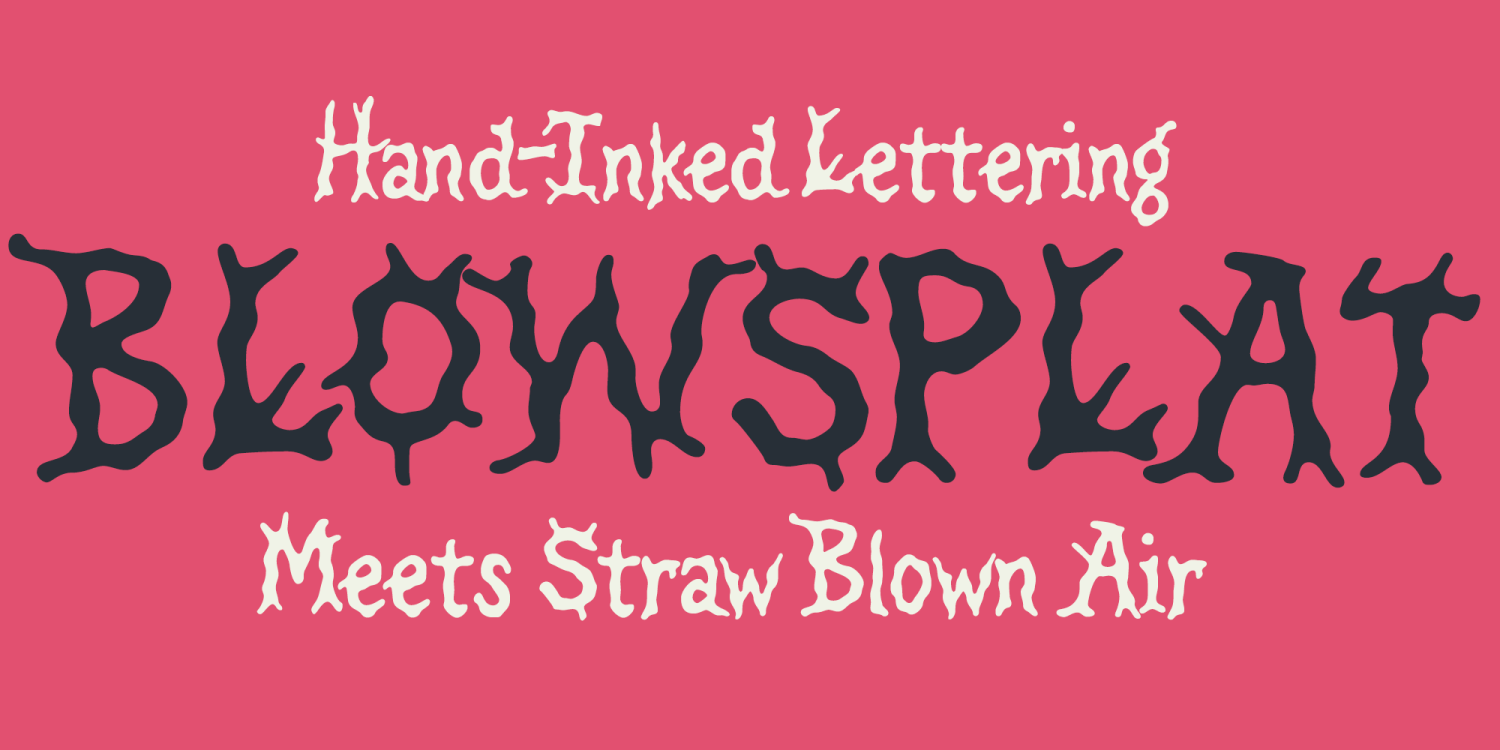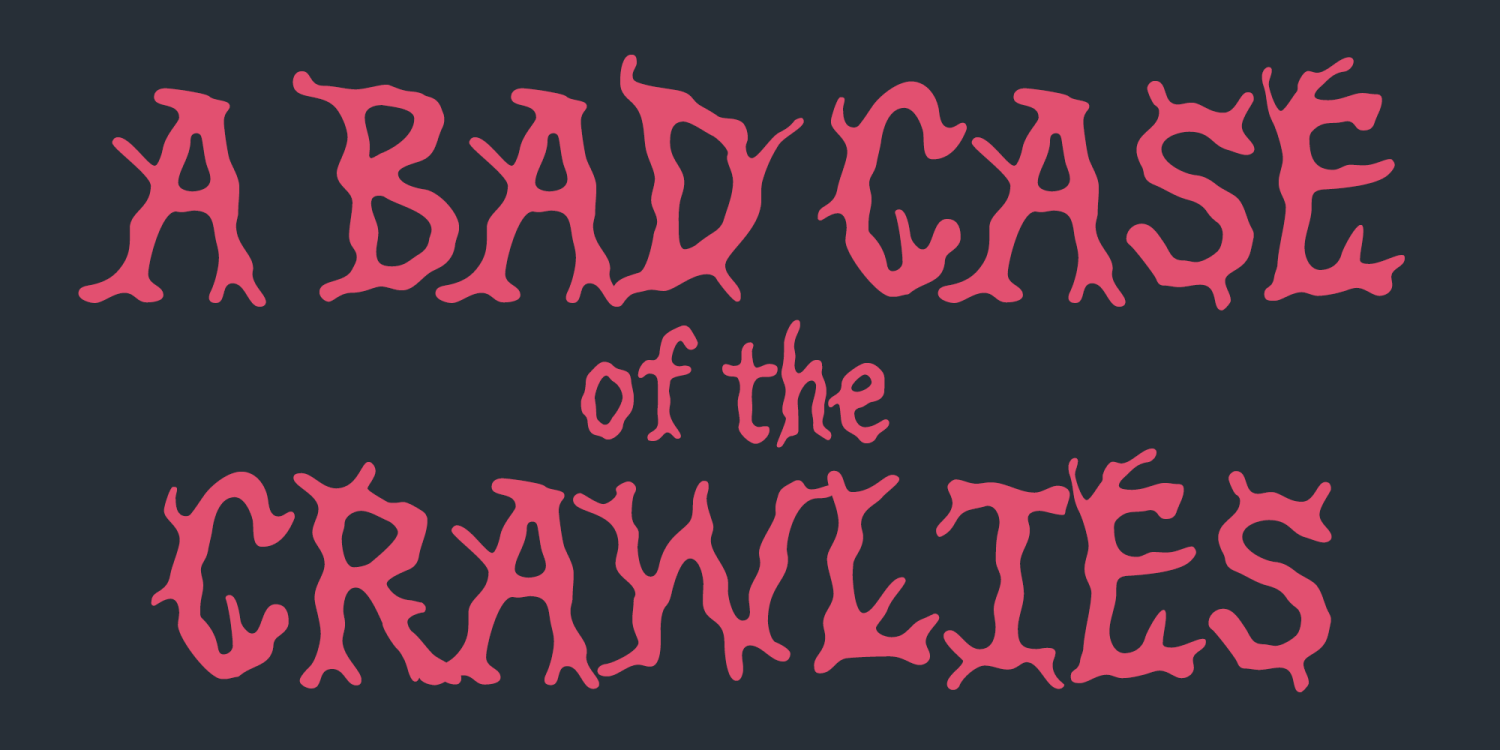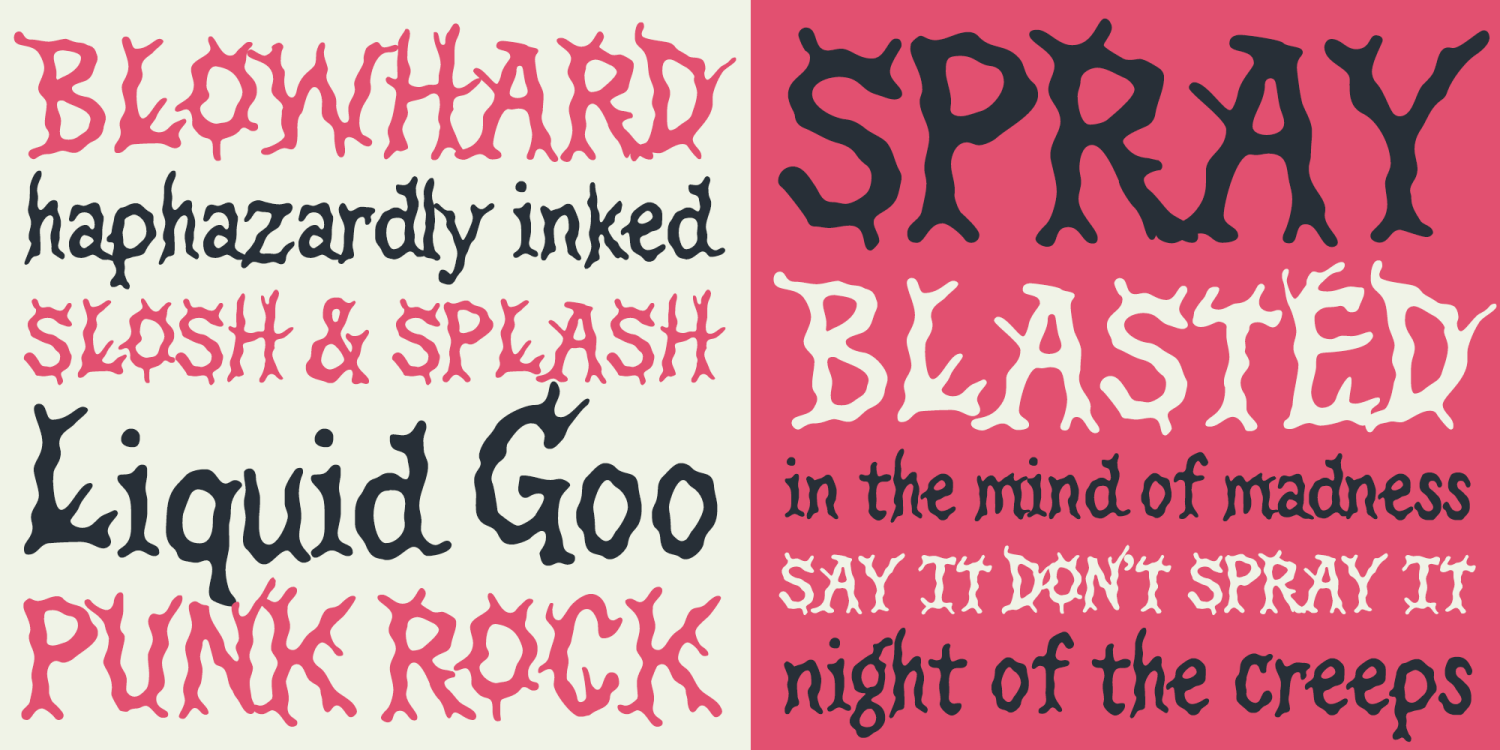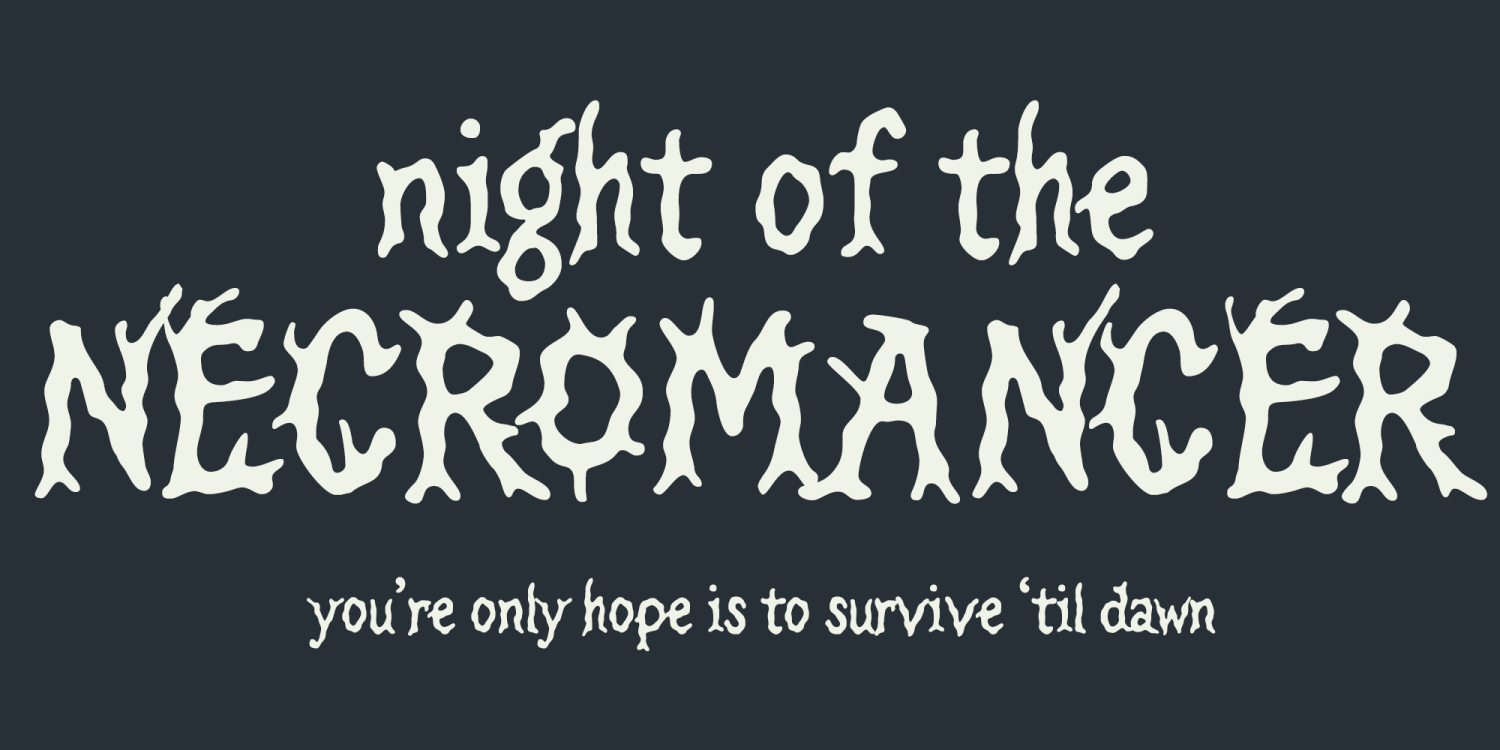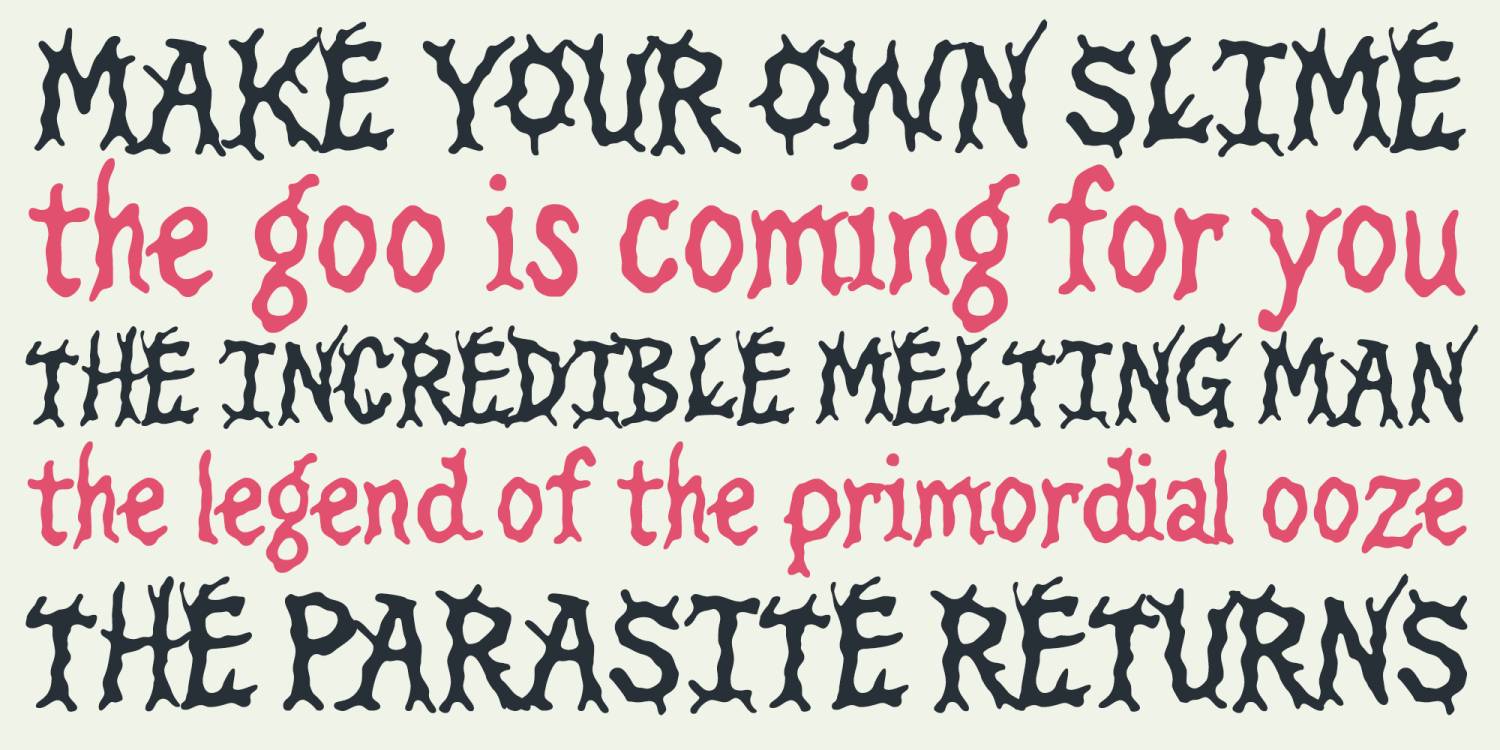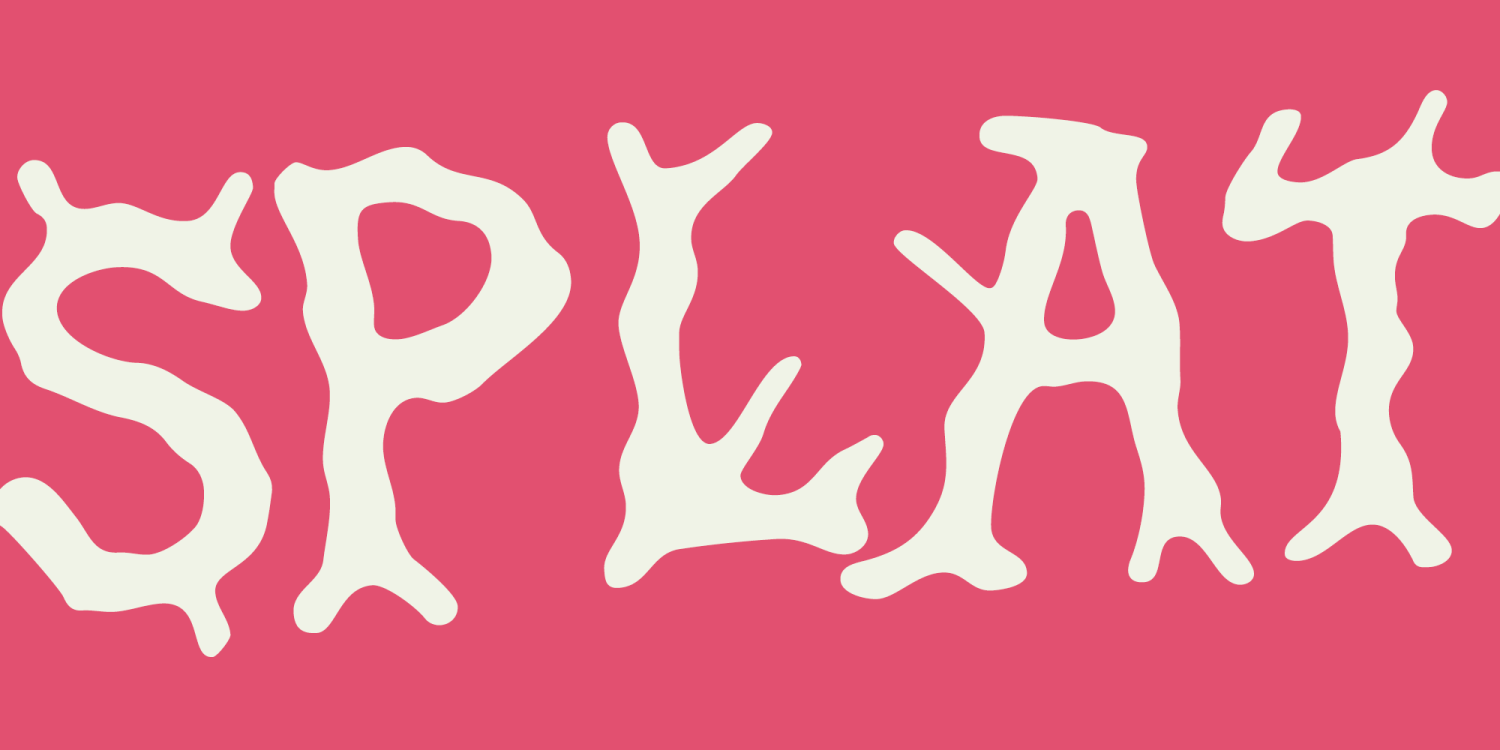
Blowsplat
Blowsplat is a wild, splattered display font inspired by hand-inked lettering blasted with air, creating explosive drips, warped strokes, and chaotic splash effects. Each letter feels sprayed, pushed, and distorted — like ink caught mid-blast. Originally developed as an all-caps typeface for maximum visual impact, a slightly calmer lowercase was later added for improved versatility and readability.
Created by physically manipulating wet ink with bursts of air through a straw, Blowsplat captures the raw, unpredictable energy of stretched, splashed, and streaked lettering. The uppercase letters carry the heaviest spray and distortion for dramatic headlines, while the lowercase characters retain enough restraint to support short phrases and supporting text. Though not intended for long-form typesetting, Blowsplat excels anywhere bold personality is required.
Perfect for punk rock posters, horror movie titles, Halloween graphics, slime and ooze packaging, underground zines, album covers, grunge branding, comic-style splash art, and anything that calls for messy, organic, chaotic impact. If your design needs something loud, distorted, and unapologetically freakish, Blowsplat is ready to spray.